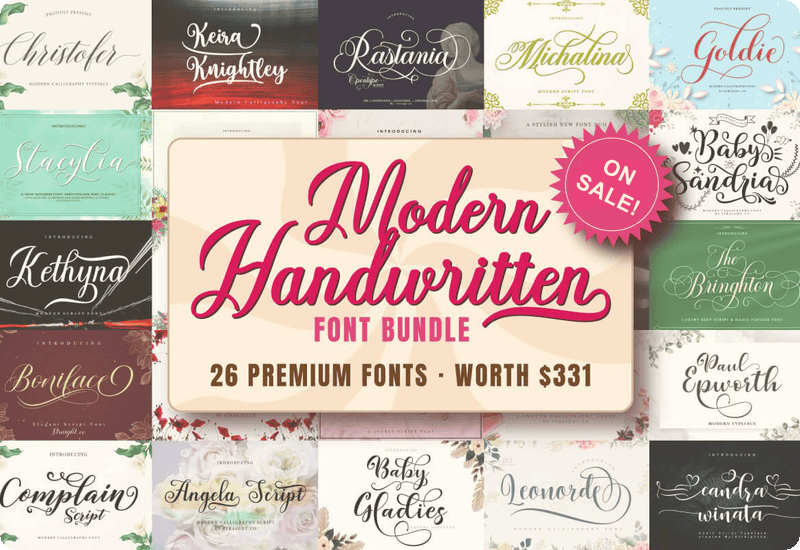
The Modern Handwritten Font Bundle is a professionally crafted collection of 26 script and handwritten fonts designed to bring elegance, charm, and artistic flair to any creative project. With a total value of $331, this bundle offers a carefully selected group of modern, versatile typefaces perfect for both personal and commercial use. Whether you’re a designer, entrepreneur, or hobbyist, these fonts give your work a unique visual appeal and a polished finish.
Every font in this collection features fluid strokes, natural curves, and an aesthetic balance between formality and casual elegance. This makes them ideal for branding, wedding invitations, logos, labels, packaging, social media graphics, book covers, posters, product design, and much more.
This bundle brings together 26 stunning fonts, each with its own style and charm. Every typeface is carefully designed to provide clean curves, stylish alternates, and graceful ligatures. You’ll get access to:
- Kathia Script
- Hello Amaria
- Sabrina Script
- Candra Winata
- Beuty Golden
- Baby Gladies
- Michalina
- The Bringhton
- Goldie Script
- Christofer Script
- Delimora Script
- Kathyna Script
- Wosella Duo
- Floresta Script
- Stafani Script
- Stacylia Script
- Maulydia Script
- Baby Sandria
- Rastania Script
- Paul Epworth
- Leonorde Script
- Boniface Script
- Keira Knightley Script
- Austher Script
- Angela Script
- Complain Script
Each font has been optimized for readability and style, allowing them to be used across a wide range of materials and platforms. From print to digital media, these fonts retain their elegance and clarity.
The Modern Handwritten Font Bundle is built for versatility. With its mix of modern calligraphy and handwritten charm, these fonts are well-suited for:
- Branding and Business Materials – Create professional logos, packaging labels, signage, and business cards that make a lasting impression.
- Wedding and Event Design – Ideal for invitations, RSVP cards, thank-you notes, menus, and signage with a romantic or graceful touch.
- Merchandise and Product Packaging – Use on t-shirts, tote bags, mugs, skincare labels, candles, and more to give your products a boutique feel.
- Social Media and Content Creation – Stylish fonts perfect for Pinterest pins, Instagram posts, and YouTube thumbnails.
- Personal Projects and Gifts – Make personalized gifts, greeting cards, planners, or art prints with a custom handwritten style.
The fonts can be used on both small and large formats, making them suitable for everything from subtle logo elements to bold poster headlines.
This feature allows even beginners to take full advantage of the stylistic sets and create highly customized and polished designs without any technical frustration.
Clean, Stylish & Crafted to Impress
What sets this font bundle apart is its consistent attention to detail. Each stroke is smooth, every curve refined, and each font complements the others without looking repetitive or generic. You’ll find both minimalist and ornate styles that make it easy to maintain design consistency across projects or blend multiple fonts for layered, expressive looks.
The variety also means you’ll always have the right font for the message you’re trying to send — from soft and romantic to clean and professional. It’s a go-to resource for designers who want to build a timeless and versatile font collection.